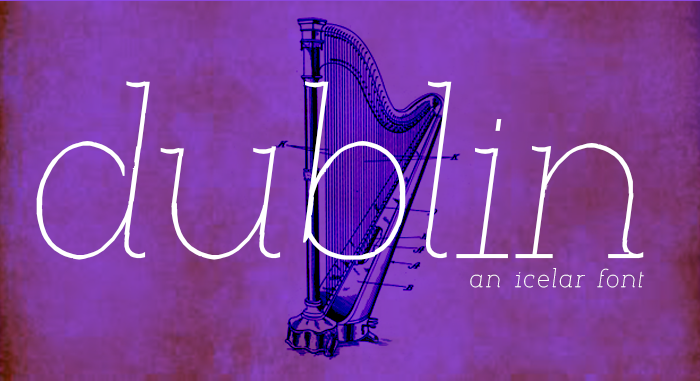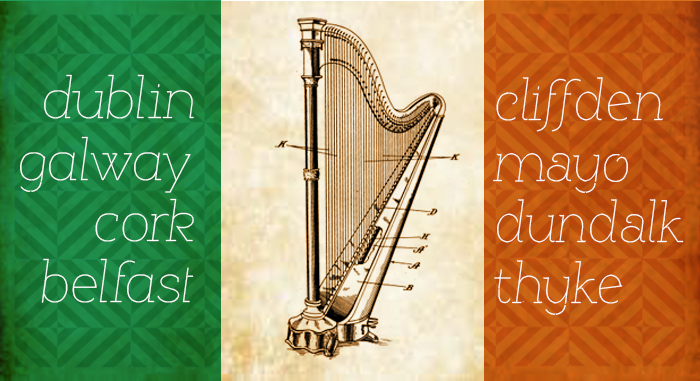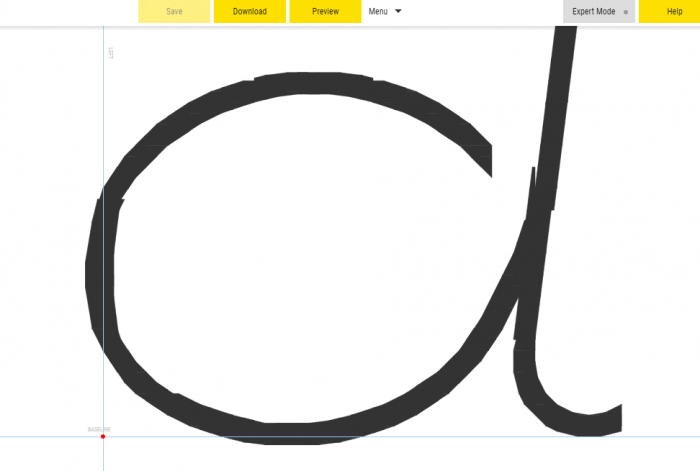
Dublin is a slanted slab serif with a corky personality. The mechanical lowercase set was supposed to go with highly ornamental Script caps, but I'm still frustrated trying to make those to work on this...
Meanwhile, comments on the different alternatives of this as it is would be highly appreciated.
As usual, another great design. I love the caps—I would curl the top of z to match c, r, and s. The straight t is a bit odd. . . .
Thanks, TC. You're right about z, is not that cohesive... t and l also need some curviliciousness imo, but curving those terminals too might break the 'slab' feeling of this.
Very elegant! Both uppercase and lowercase variants work well. I would maybe switch the Ks around.
I'm amazed by the fact that this kind of variable line width produces the final image with no visible "dents" and "bruises".
A risky decision that's totally worth it.
The rough detailing when you zoom in kind of reminds me of grunge...
Jeepers. My monitor ain't big enough for editing that big, but great job!
i think eszett has descender since it's Long s + Zhe and Zhe has descender